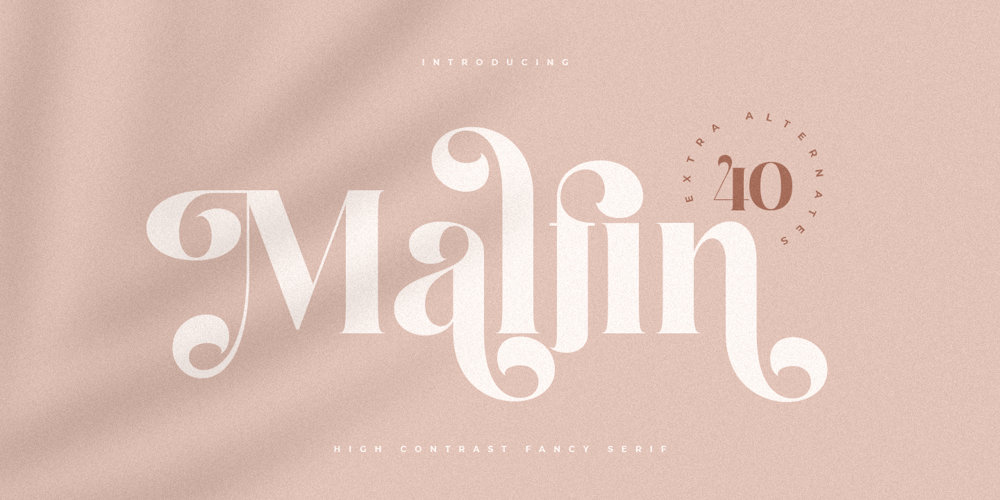
Malfin Font Family was designed by Zamroni Hamzah and published by Sensatype Studio. Malfin contains 1 styles and family package options. A Luxury Cursive Serif font that special for show the display or headline with love and fancy style will be ready to add value of your brand. It so nice to leverage designer or product owner that need solutions to make their design look more stylish and modern. And specially for Malfin font, We prepared any characters to help you create unlimited variations for your creative needs.Malfin Love Luxury Cursive Serif Font ready with: Unique Luxury and Cursive Characters Preview as a inspirations that you can do with Malfin font Ready with Lowercase and Uppercase characters Wish you enjoy our font. :)Item tags